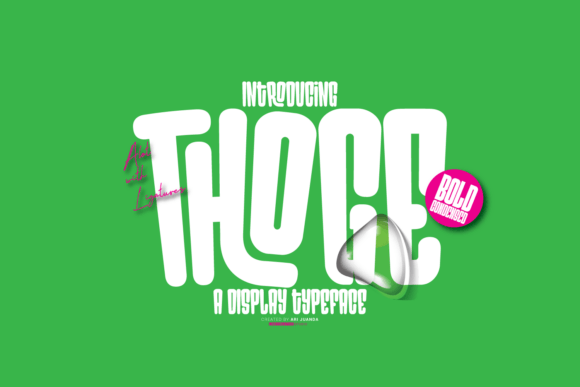
| Thoge Font | Modern Condensed Sans Serif | Branding, Invitations, Product Packaging | Premium (Commercial Use) |
Font Review: Trending Condensed Typeface for 2026
Thoge Font by Line creative · Creative Fabrica
Thoge Font offers a sleek, condensed sans serif look that perfectly balances modernism and space efficiency. Its clean lines and sharply defined letterforms make it ideal for bold headlines, upscale branding, chic restaurant menus, and wedding invitations. With its versatile design, Thoge adapts well to both print and digital applications, making it a top choice for Amazon and Etsy sellers seeking to create stylish product listings and impactful promotional graphics. Its high readability ensures legibility even at smaller sizes, further enhancing its utility for contemporary projects.